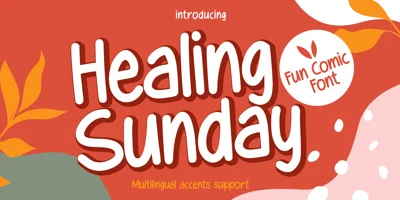
Healing Sunday Font
Healing Sunday Font is ideal for wellness center branding, meditation app interfaces, spa treatment menus, therapeutic practice logos, mindfulness blog designs, and holistic health product packaging.
Healing Sunday Font is exciting because it radiates tranquil serenity and restorative calm, offering designers a peaceful typeface that embodies relaxation, healing energy, and the gentle comfort of Sunday mornings.
The Healing Sunday Font family includes therapeutic variations: Healing Sunday Light, Healing Sunday Regular, Healing Sunday Medium, soft alternates, and calming decorative elements that enhance the font's peaceful character.
Find inner peace through typography with Healing Sunday Font, a soothing typeface that brings restorative calm and gentle healing energy to your most nurturing design projects. This comforting font excels in creating welcoming identities for yoga studios, mental health counselors, organic tea companies, and wellness retreats that help people reconnect with their inner balance and natural healing abilities. The thoughtfully designed letterforms feature soft curves and harmonious proportions that communicate compassion, safety, and emotional support while ensuring perfect readability across all therapeutic applications. Perfect for self-care apps, aromatherapy brands, recovery support materials, and mindfulness training programs that need to create feelings of trust and emotional sanctuary, this font connects with audiences seeking peace and personal transformation. Each character flows with gentle wisdom, making every message feel like a warm embrace from a caring friend. Healing Sunday Font transforms everyday communications into healing affirmations that nurture souls and inspire lasting wellness journeys toward authentic happiness.